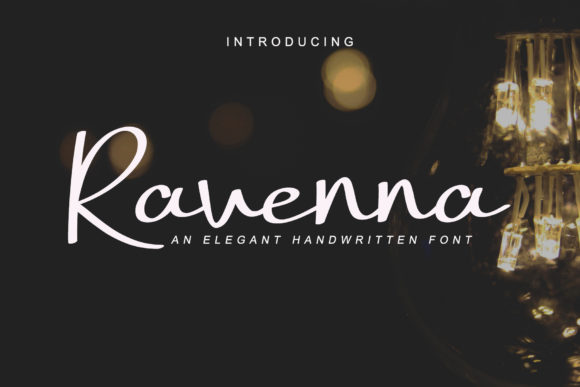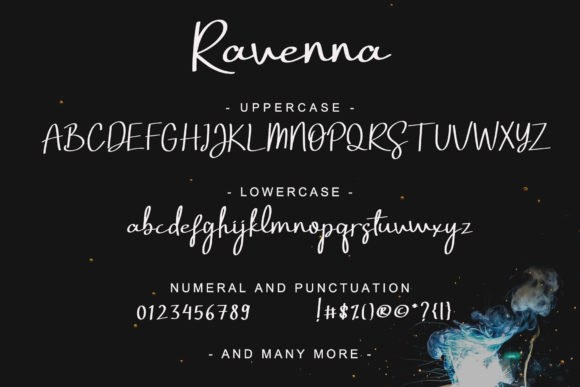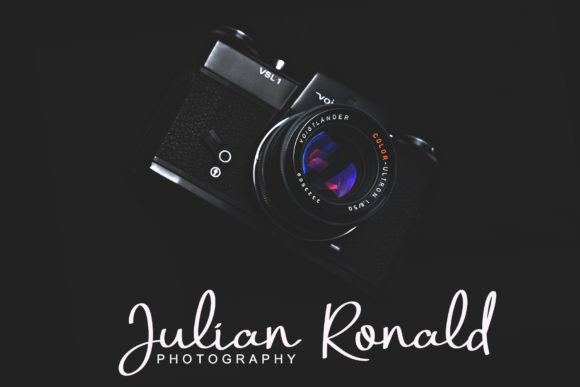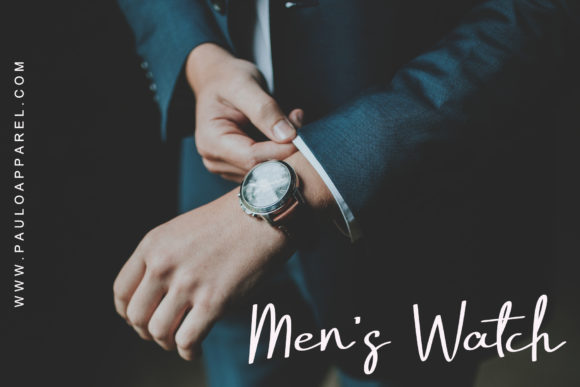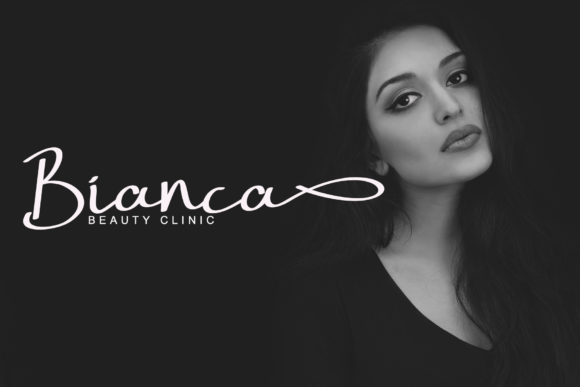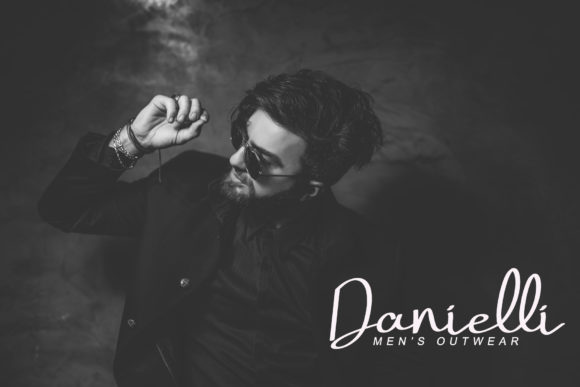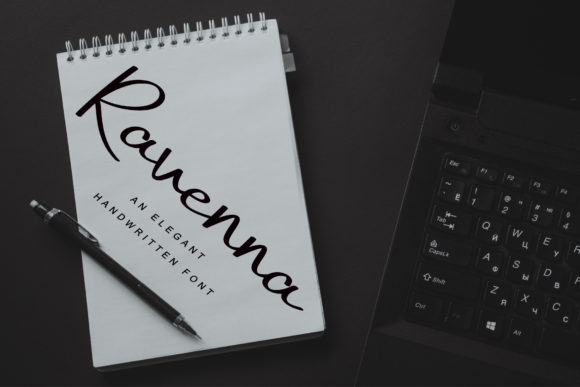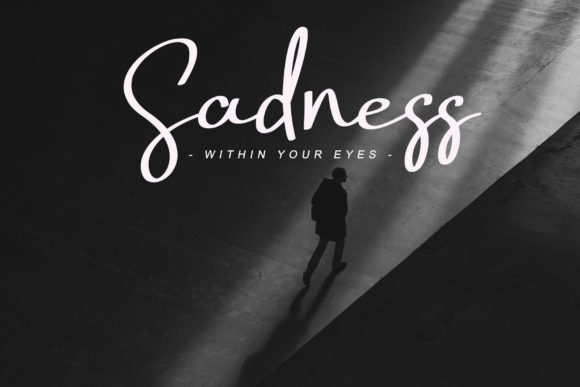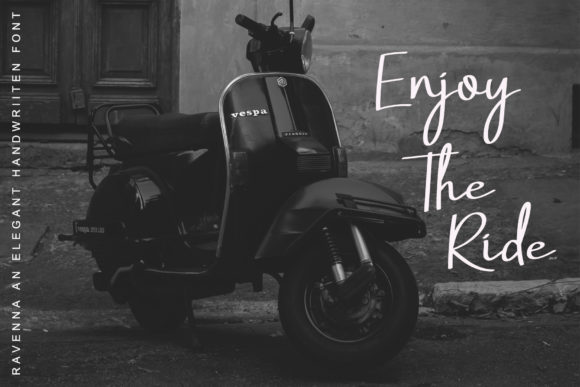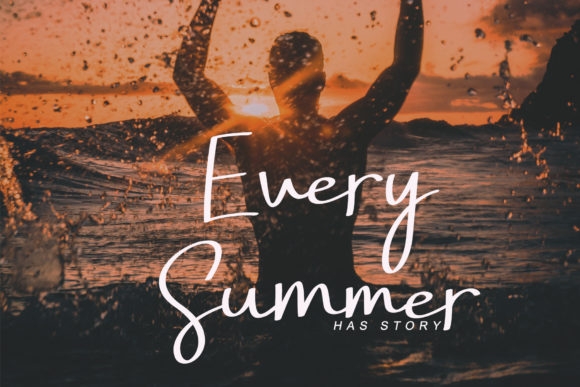
Ravenna Font
About Ravenna Font
Ravenna is an elegant script font that carries a personal look & feel. Get inspired by its unique charm, and turn any design idea into a true standout.